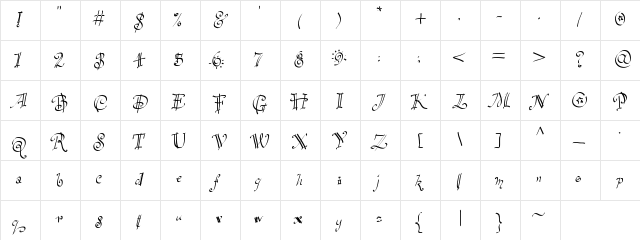
PartyHand Medium Free Font
PartyHand Medium
Complete PartyHand Medium glyph index. Displaying only characters natively supported by PartyHand Medium font.
Design Context for PartyHand
PartyHand flows with the natural rhythm of handwritten lettering, making it ideal for designs that call for warmth and personal expression.
Font Pairing: Combine PartyHand with a simple geometric sans for maximum contrast - the tension between flowing curves and clean structure is a classic typographic pairing.
Pro Tip: Use PartyHand for short runs of text - names, titles, or taglines. Extended body copy in script faces tires the eye quickly.